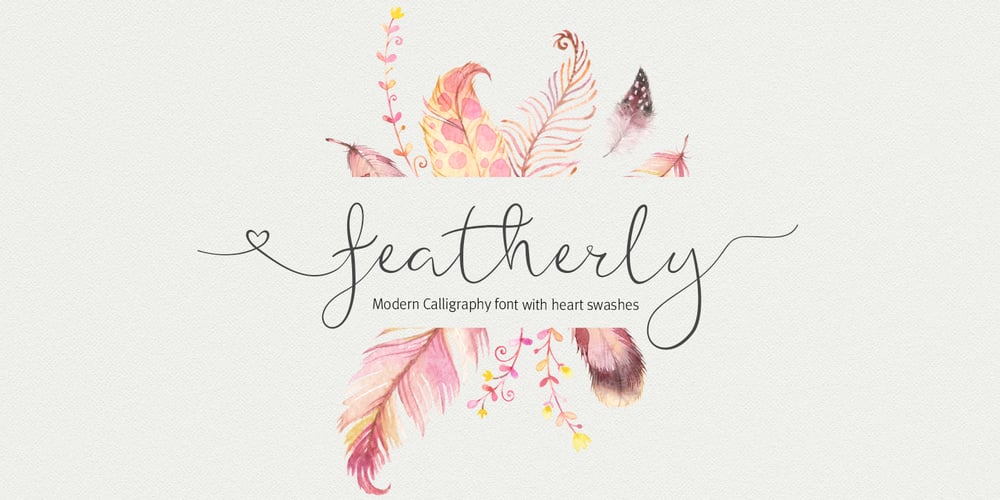
Featherly Font Family was designed by Joanne Hewitt and published by Joanne Marie. Featherly contains 3 styles and family package options. Well, here it is ๐ A beautiful hand made font for all you swash lovers!Featherly is a hand drawn, elegant, modern calligraphic font perfect for wedding design projects, invitations, greeting cards, signatures, watermarks, logos, handwriting and more.The font includes foreign language glyphs so please do take a look at the other screenshots to see what’s included in this font and what you can do with it.